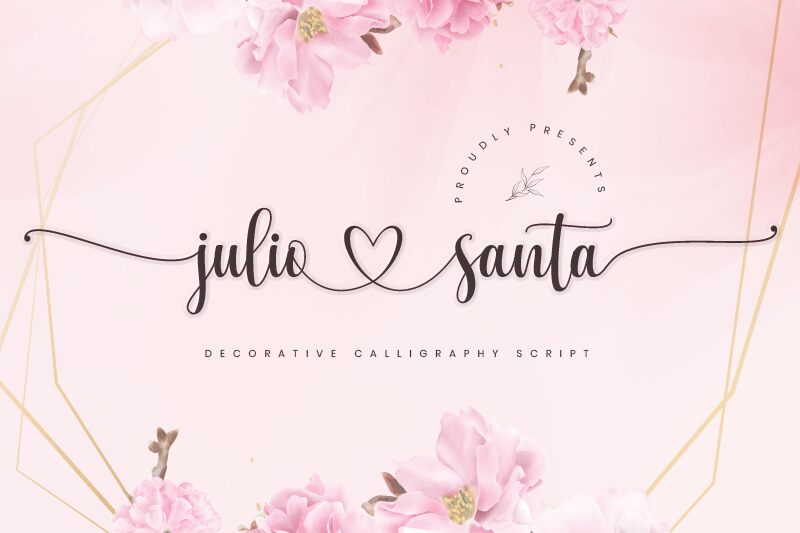
Julio Santa
Julio Santa, a creation by Namara Creative, stands out as a decorative script font with a calligraphy flair that exudes femininity and romance. Its semi-light weight adds a gentle touch to the elegant sweeps and curves characteristic of its calligraphic style. With its chic and modern undertones, Julio Santa is an ideal choice for projects seeking to impart an air of sophistication and charm.
This font's aesthetic appeal lies in its ability to marry the classic artistry of calligraphy with contemporary design sensibilities. Whether it graces wedding invitations or elevates craft designs, Julio Santa brings a bespoke elegance to any creative endeavor. Its suitability for designs requiring a romantic and delicate feel makes it an indispensable tool for designers aiming to infuse their work with heartfelt expression and style.